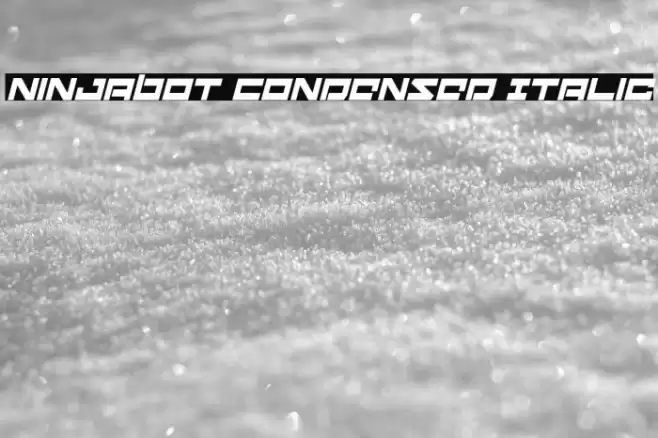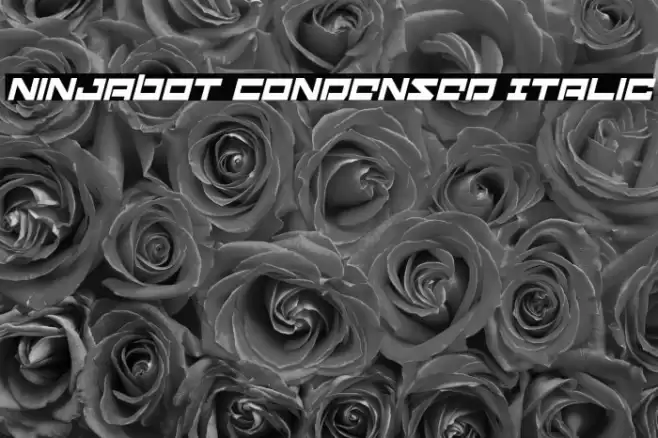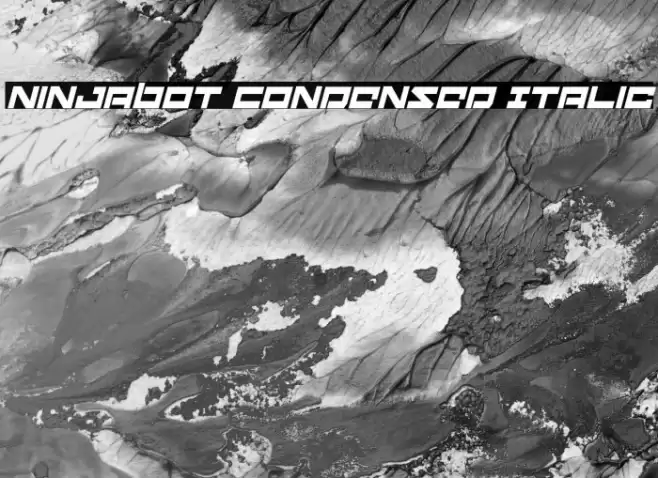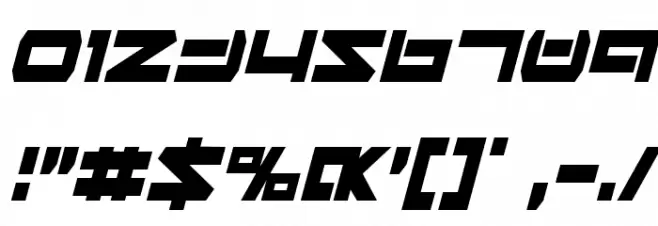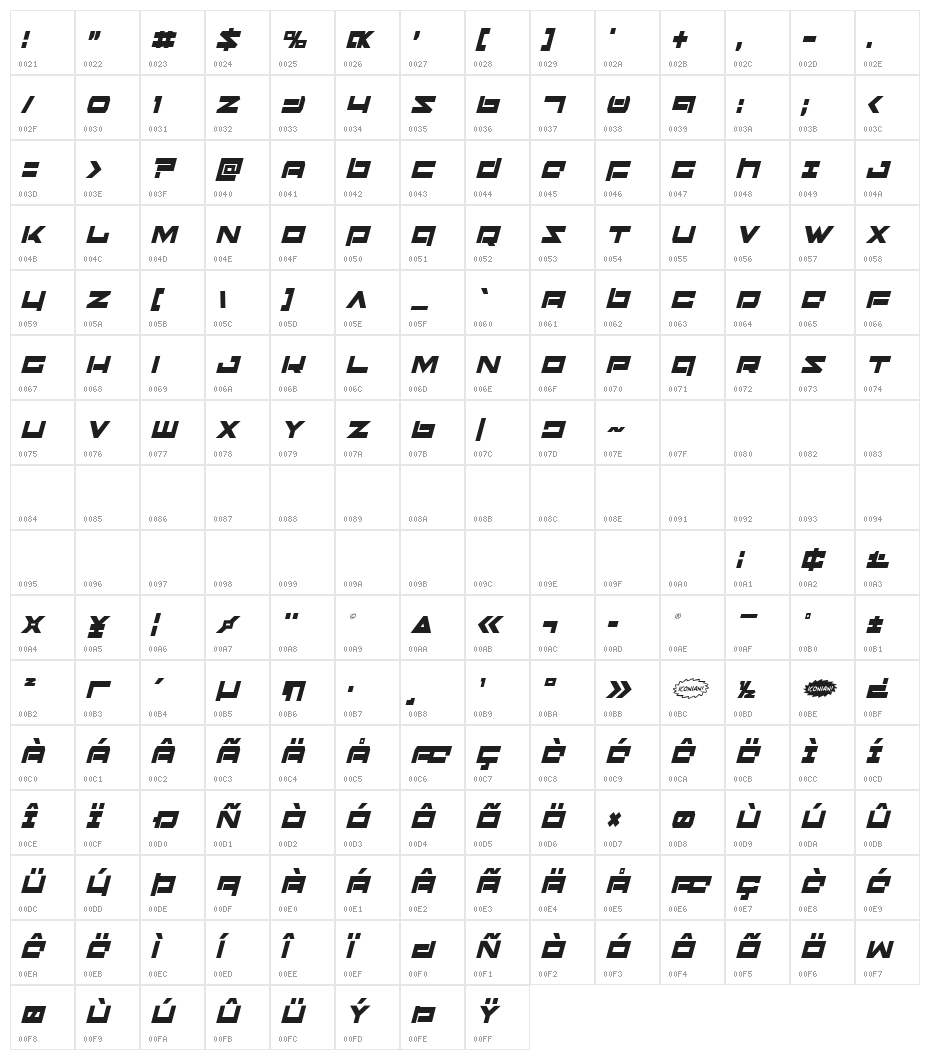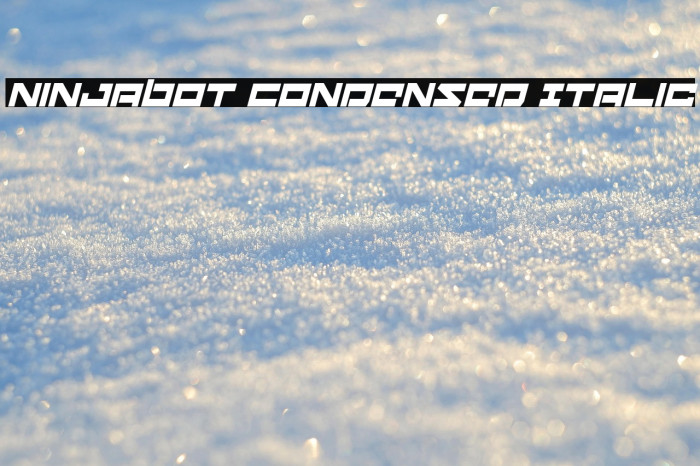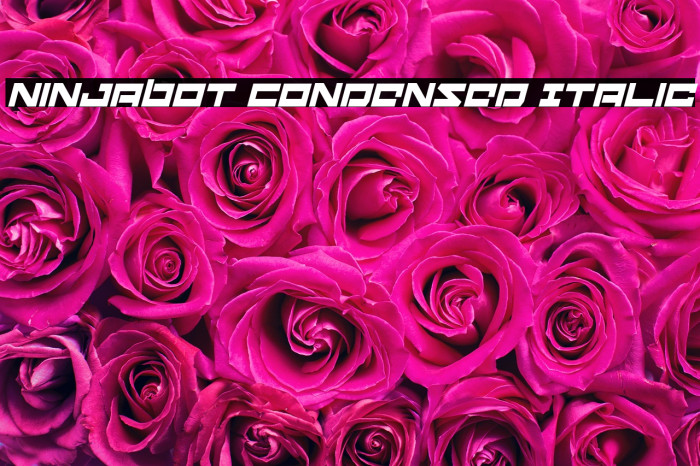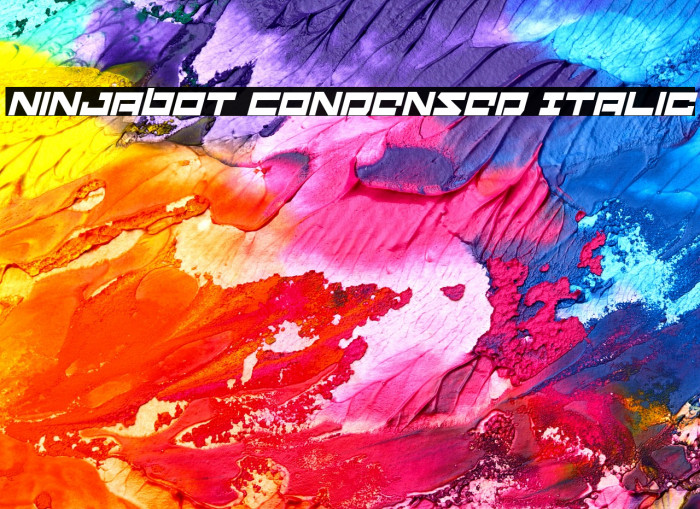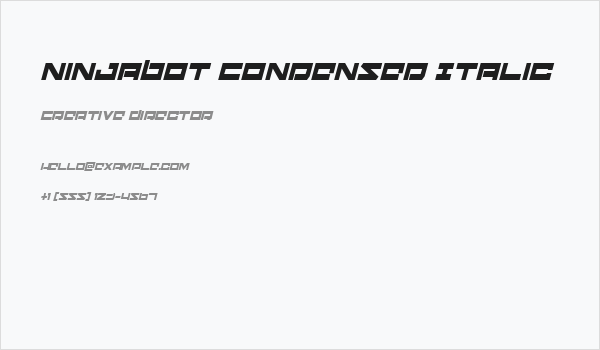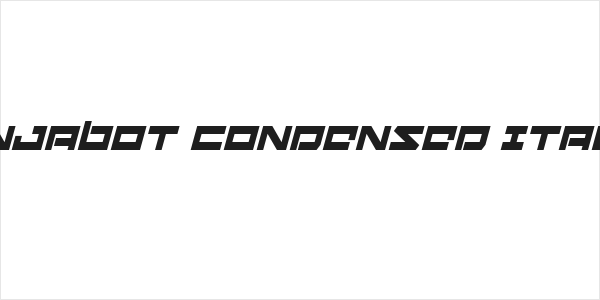
Ninjabot Condensed Italic Font
Ninjabot Condensed Italic Description
This font features a futuristic and angular design, characterized by its sharp edges and geometric shapes. The letters are slanted, giving it an italicized appearance, and the overall structure is condensed, making it suitable for compact spaces. The bold strokes and unique character shapes create a strong visual impact, ideal for modern and tech-oriented projects. The font maintains a consistent style across uppercase, lowercase, numerals, and special characters, ensuring versatility in various design applications.
A futuristic, angular, and condensed italic font with bold strokes from Uncategorized fonts.
- Proposed Projects: Ideal for tech branding, video game titles, sci-fi posters, and modern digital interfaces.
- Width: Condensed
- Contrast: High